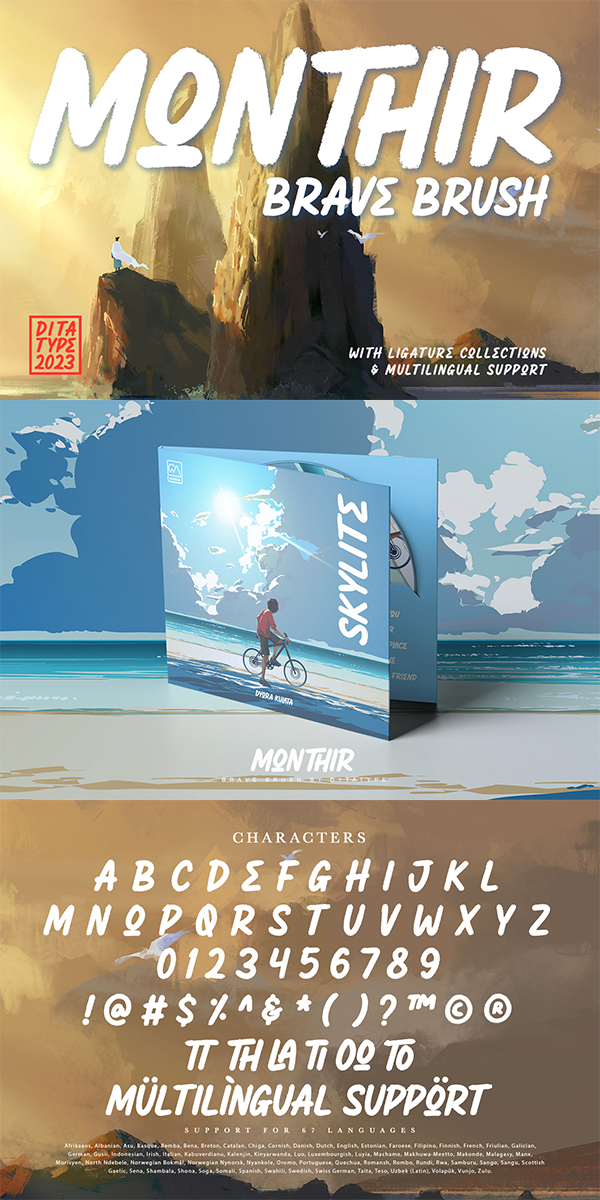
Monthir Font
About Monthir
Monthir is a capitalized brush font in brush details to produce authentic looking handwriting displays. The font’s bold, firm displays which are the advantages of such a font can create more interesting, prominent designs. Besides, people can feel closer to the brands or designs created through its personal, natural nuances. The letters’ proportions are relatively consistent, yet its dramatic, bold styles are suitably applied for bigger text sizes rather than the text body.